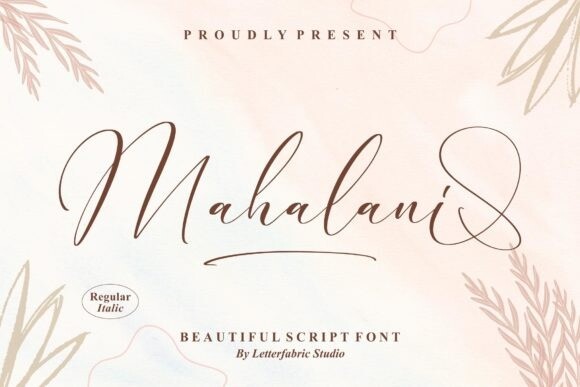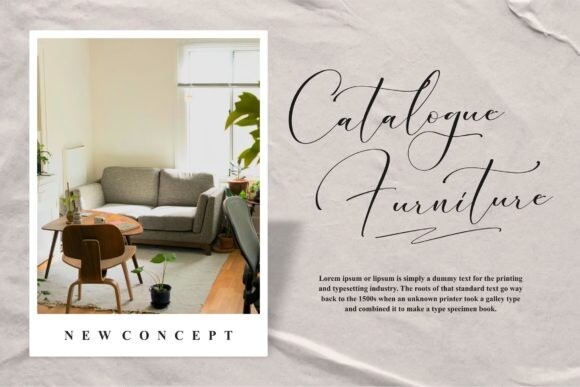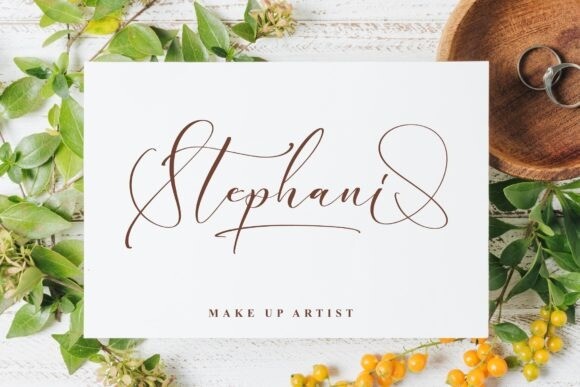
Mahalani Font
Mahalani is a beautiful, stylish and chic lettered script font. This lovely font is suitable for any projects such as: logos, branding projects, homeware designs, product packaging, mugs, quotes, posters, shopping bags, t-shirts, book covers, and more.